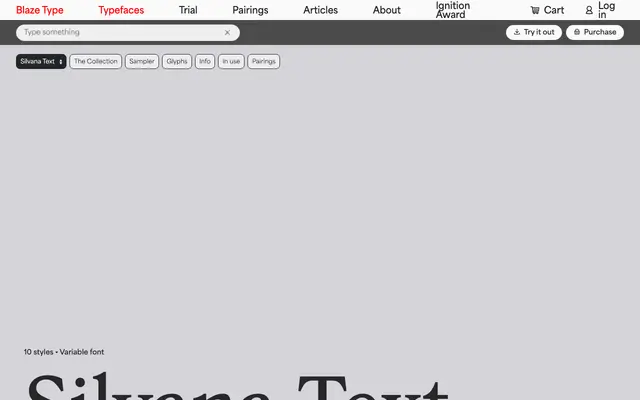
Silvana Text
Blaze Type · Siri Lee Lindskrog · 2024
A text-optimised transitional serif by Siri Lee Lindskrog, drawing on 19th-century sources with an alternate glyph set that adds calligraphic ink spurs and energetic italic strokes.
Designed by Siri Lee Lindskrog and released in 2024, it pairs modest stroke contrast and wider proportions for comfortable reading at body sizes with a more characterful alternate set featuring fluid ink-like spurs on horizontal strifs and diagonal crossing strokes. The italic weight palette extends the calligraphic quality with deep junctions and steep turns, and stacked ligatures such as www and xxx add a playful note. It operates as the text companion to Silvana Display, which carries sharper contrast for headline use.
Described explicitly as drawing on 19th-century transitional typefaces, combining Old Style pen influence with modern-style refinement; modest contrast and wider proportions confirm transitional classification.